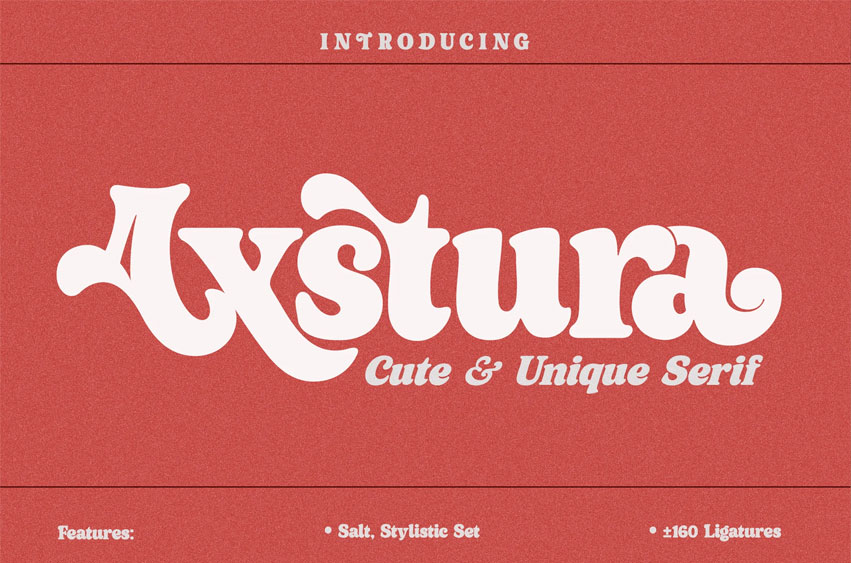
Axstura Font
Axstura Font with an artistic touch, elegant, modern, yet vintage the as well as a unique blend of ligatures, a letter, so that the authors compose it with a little swirly embedding, so that a modern font is formed and ready to make a statement by adding elegant and unique flair to your next design project.
This font comes with four styles: Axstura Serif.